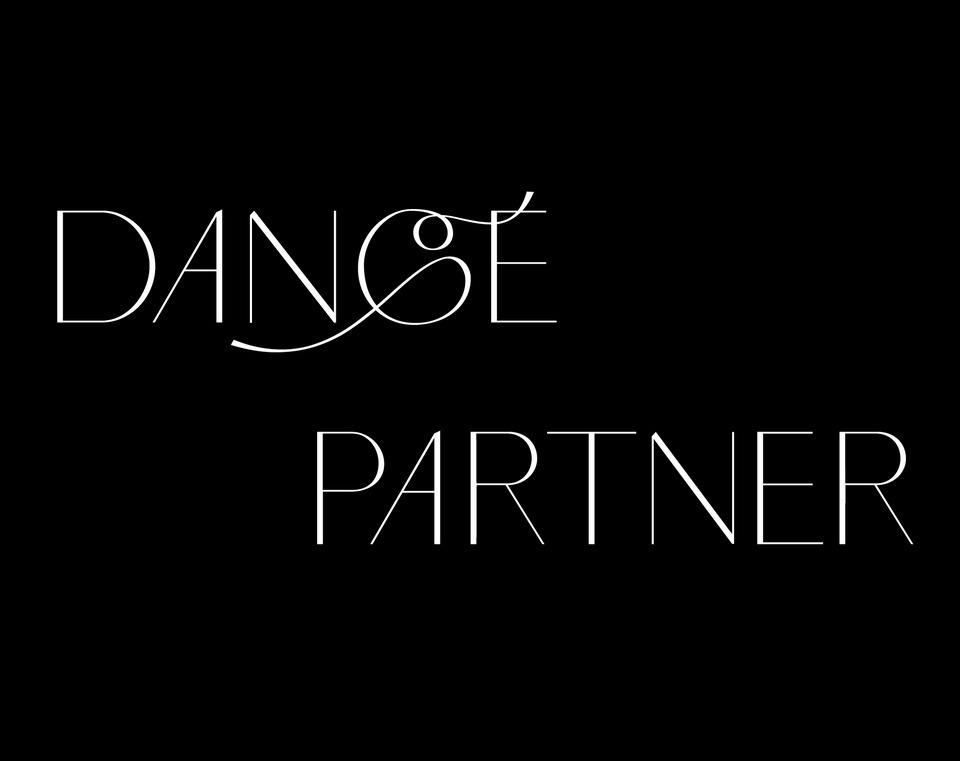
Dance Partner Sans Serif Font
This is a stylish font It modern and stylist look. Made from font designer named Alexandra Arsentieva. It’s soft curves mixed with high contrast glyphs, give it a feminine and masculine quality. Great in layout design for quotes or body copy, best used as a display for headings, logos, branding, magazines, product packaging and invitations.